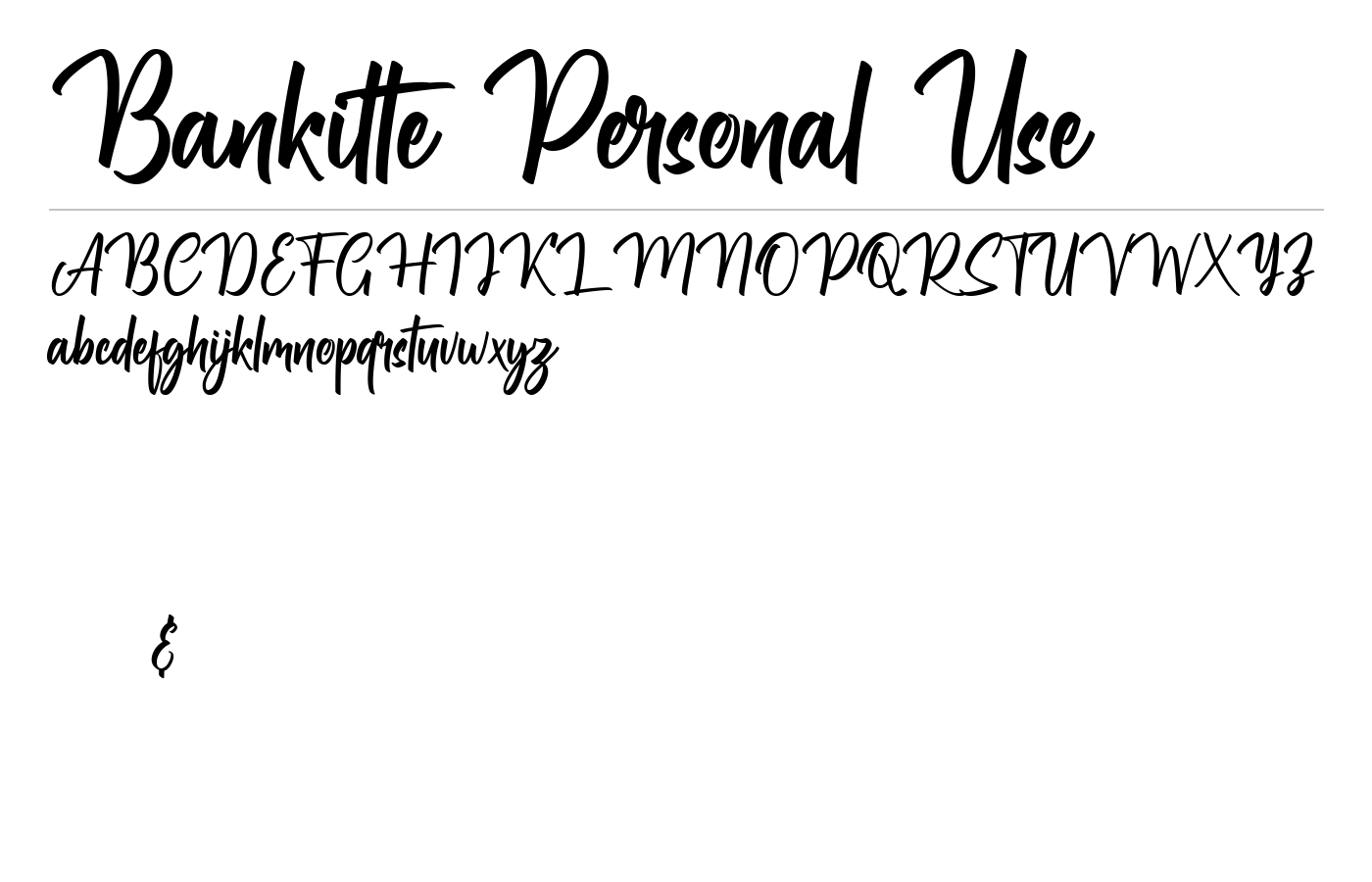
Bankitte Personal Use is a lively and elegant handwritten script font with a smooth, flowing style and moderate stroke contrast that creates a natural, friendly feel. Its tall, slightly condensed letterforms with unique quirky details make it perfect for creative projects that want to convey warmth and personality, such as invitations, greeting cards, or stylish branding. This font works best in headlines or short text where a personal, artistic touch is desired.
Bankitte Personal Use Font
About Bankitte Personal Use Font
| Font family | Bankitte Personal Use Font |
| Designer | Muhammad Faizal Said |